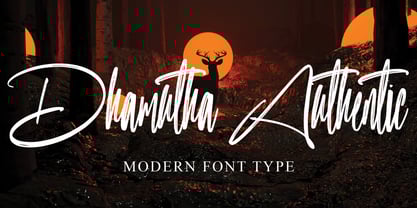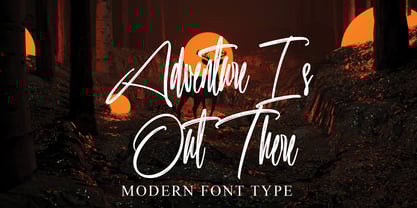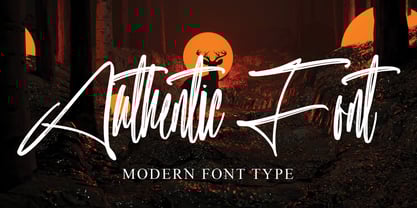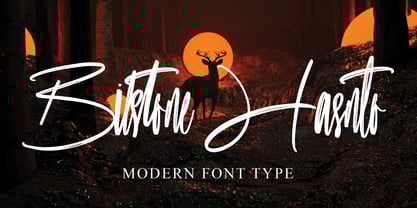
Dhamutha Authentic
by Ayska
The Dhamutha Authentic Font Family was designed by Dhoni Trihatmoko and published by Ayska. Dhamutha Authentic contains 1 styles.
Experience the mesmerizing enchantment of Dhamutha Authentic, a harmoniously cohesive font that expertly blends modern sophistication with the enchanting charm of freehand sketchings. Dhamutha Authentic, delicately crafted with precision, radiates an elegant poise and fashionable allure, instantly elevating your creative ventures. This exemplary font is integral in captivating your blog followers, adding a splash of individuality to your e-journal, infusing dynamism into your invites, or articulating your profound emotions in custom-made cards. With its stirring undertones of timeless scrapbook elements blended with a trendy, up-to-date twist perfect for interior design, Dhamutha Authentic is the epitome of adaptability. It instills a unique artistic charisma into every digital canvas, staying true to its authenticity, Dhamutha Authentic fuels your creativity, paving the way for distinctive and impressive outcomes. Harness the adaptable prowess of Dhamutha Authentic, engage with its understated strength, and watch your creative ideas transform into unique masterpieces.